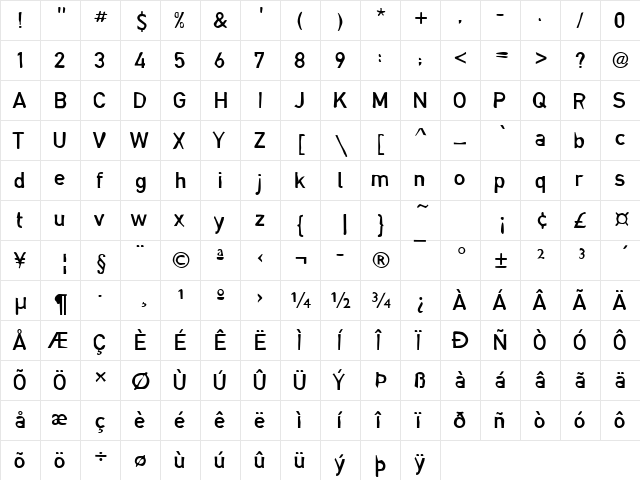
DTCDirtyM14 Regular
Design Context for DTCDirtyM14 Typeface
DTCDirtyM14 offers clean, dependable letterforms without strong stylistic allegiance, making it a practical choice for designers who need flexibility.